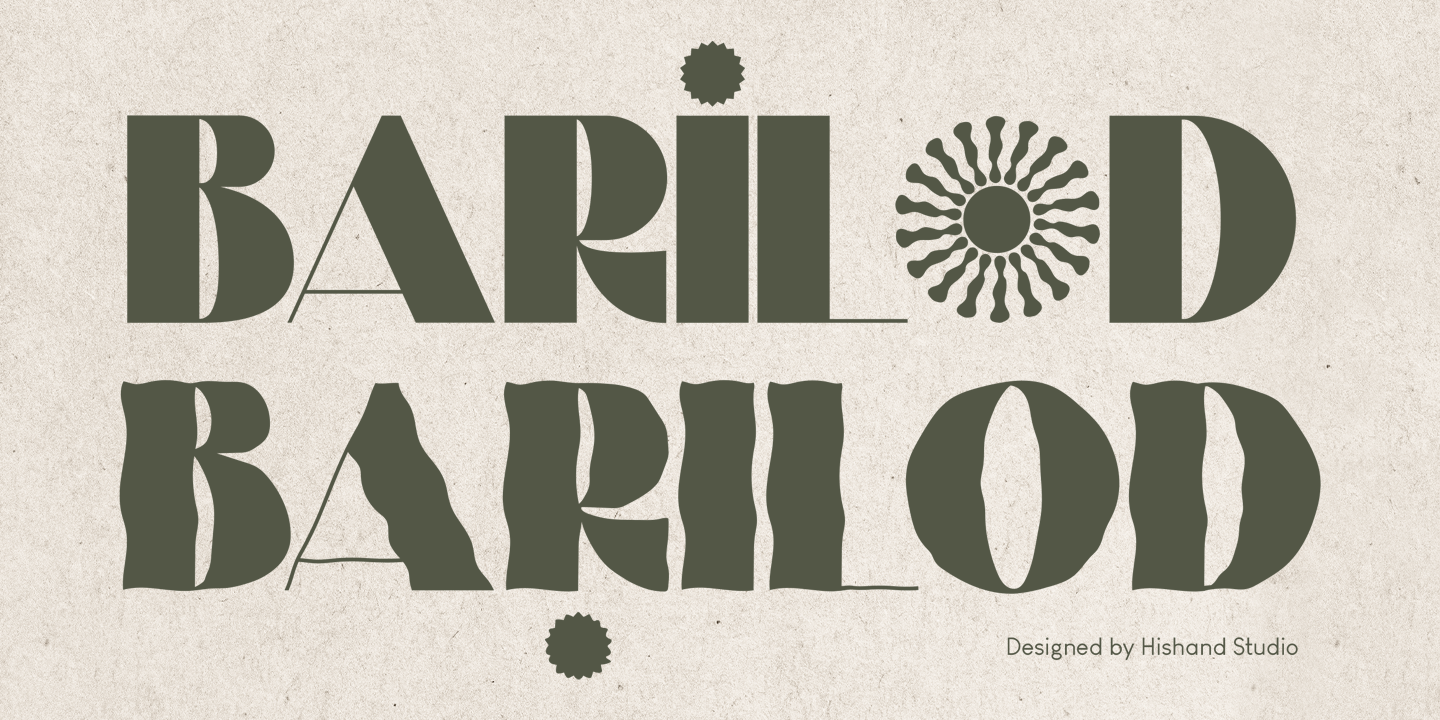
The Barilod Font excels in barrel-aged beverage branding, craft brewery communications, whiskey distillery materials, wine barrel cooperage signage, artisanal spirits packaging, traditional fermentation businesses, aged product marketing, and authentic craft beverage applications that require barrel-aged sophistication with artisanal character and traditional craftsmanship appeal.
What makes the Barilod Font Free Download so exciting is its exceptional ability to capture the rich tradition and artisanal craftsmanship of barrel-aging processes through typography that embodies both the patience required for proper aging and the sophisticated flavors that develop through traditional fermentation methods. This typeface features distinctive letterforms with barrel characteristics that suggest oak aging, traditional cooperage, and the time-honored techniques that transform simple ingredients into complex, sophisticated beverages. Its craft aesthetic speaks to connoisseurs who appreciate both traditional methods and artisanal quality, making it perfect for craft breweries, distilleries, and artisanal beverage producers requiring typography that projects both craftsmanship authority and aging authenticity.
The Barilod Font family encompasses robust weight variations from Regular to Bold, each maintaining the font's signature barrel character and artisanal sophistication. The collection includes Medium and Bold styles with enhanced craft characteristics that reinforce the font's traditional appeal and brewing authority. This authentic font system ensures craft beverage producers and artisanal businesses have access to typography that conveys genuine craftsmanship while creating immediate connection to concepts of barrel aging, traditional brewing, and artisanal beverage excellence.
Perfect for craft breweries, artisanal distilleries, wine producers, and creative professionals working on projects that celebrate traditional brewing craftsmanship and barrel-aging heritage with authentic sophistication. The font's craft appeal makes it invaluable for beverage marketers, brewing professionals, and artisanal producers developing communications that must barrel through ordinary messaging while aging gracefully. Download Barilod Font Free Download today and age your craft projects with this exceptional typeface that ferments with traditional wisdom while delivering artisanal sophistication and barrel-aged authenticity for craft beverage communications.